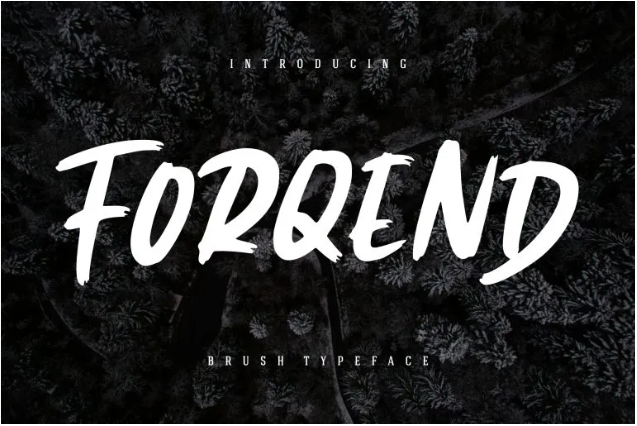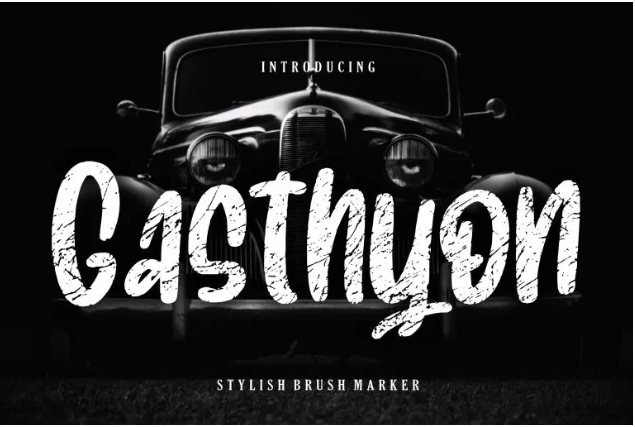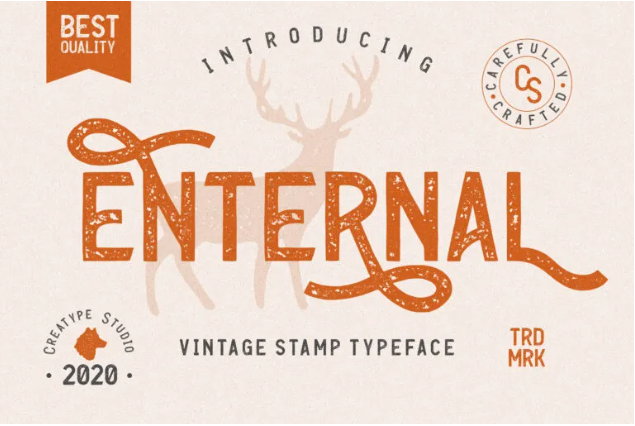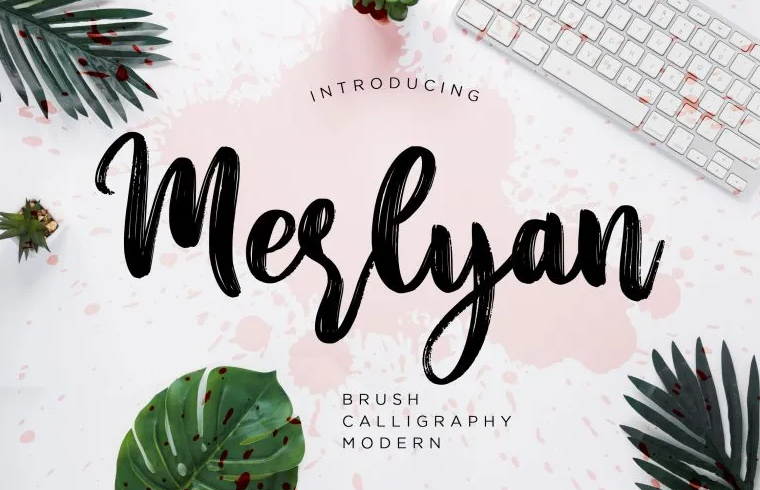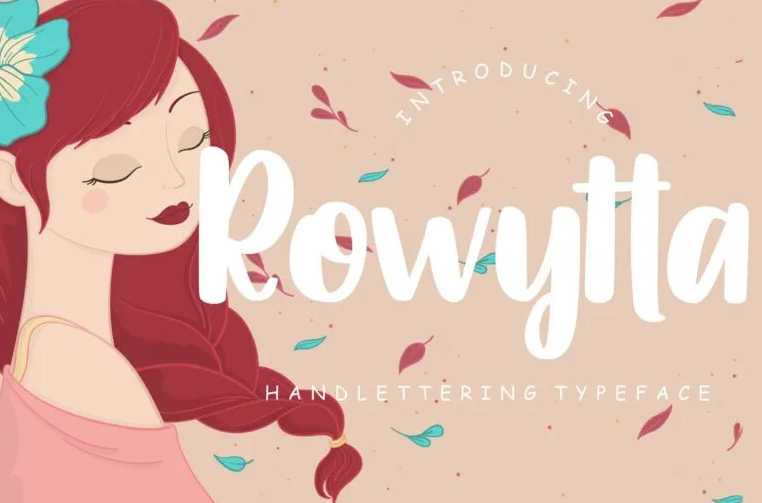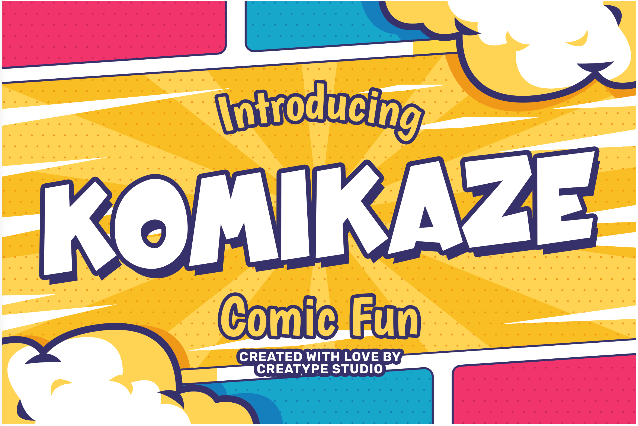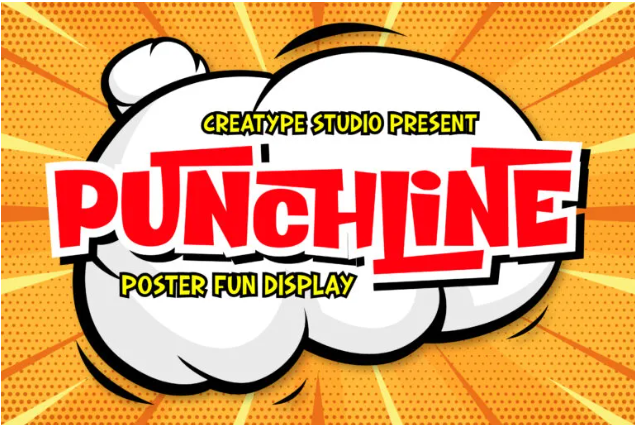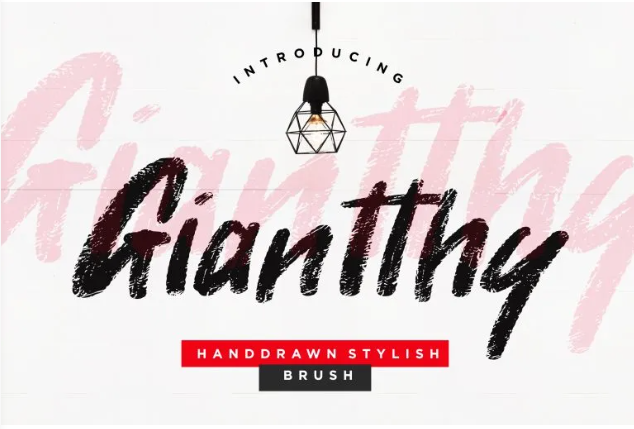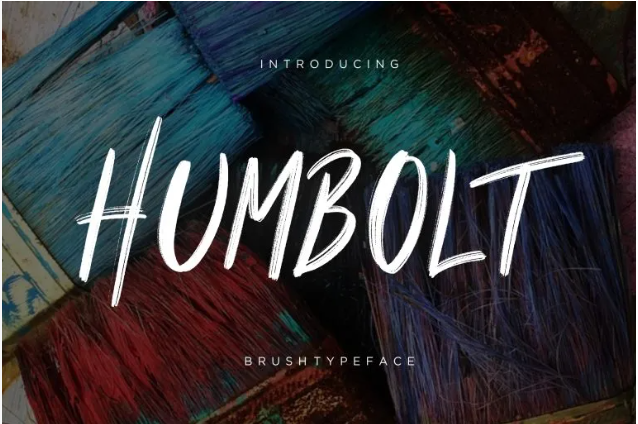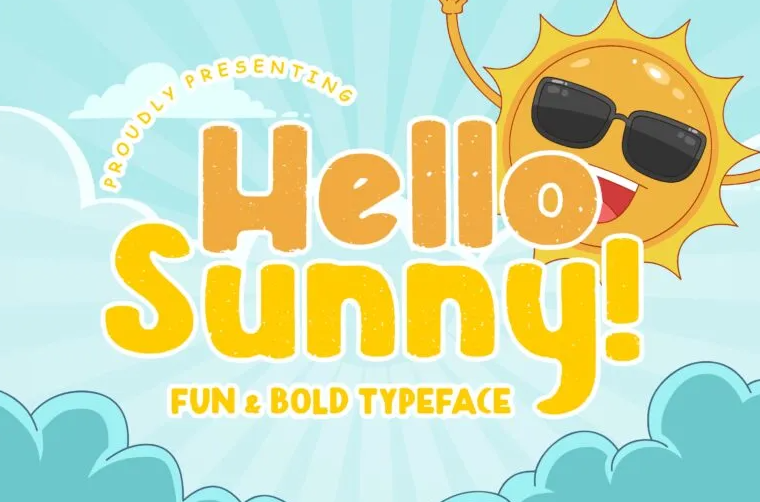
20+ Options of Billboard Font to Pep Up Ads Design
Billboards are meant to inform the content, so the wise thing is to convey the message with a legible font like Helvetica or Arial. But, designers gotta design, right? Choosing your billboard font to match your aesthetic design is a plus.
Unique Billboard Fonts for Any Occasion
Bear in mind that the fonts you use for a billboard ad design should be legible from a distance in a limited time.  Additionally, the message should also be easily palpable, yet striking.
1. Forqend
Forqend Brush Typeface
Sans serif is the best typeface option for billboard designs since it has a minimalist design with high legibility.  Forqend, which is a sans serif brush typeface, offers that basic requirement and portrays the excitement and an outdoor vibe of your campaigns.
2. Banshee
Banshee Brush Script Font
For more urban-themed campaigns, you can use Banshee. This one is versatile since it’s a brush script font. So, it’s a fascinating choice to stand alone, but you can pair it with other fonts too.
3. The Quest
The Quest Retro Font
As a retro typeface, The Quest is the best font for billboards you can ask for if you need a vintage or retro mood. It has eccentric yet legible designs with palpable weight. Not only suitable for retro-themed campaigns, the font can also paired with modern, fun, and youthful designs.
4. Komikaze
Komikaze Comic Font
Add Komikaze to your designs and see the difference it makes. This font should be your go-to if you want to highlight a sense of urgency in your campaigns.
5. Punchline
Punchline Poster Display Typeface
If you want a wilder alternative for Komikaze, use Punchline. This one has a similar shape with added tails and “hats” to the alternate letters, making it much more vibrant.
6. Coutline
Coutline Stencil Typeface
Coutline is a stencil typeface, the font has the typical urban vibe. The font is a perfect match for your active campaigns or sports products.
7. Giantthy
Giantthy Brush Font
Choosing Ghiantthy as your billboard font can be a major improvement to your designs. This hand-drawn brush font can fit a wide range of products, including sportswear, culinary, and outdoor apparel.
8. Jacklyn Blands
Jacklyn Blands Stylish Marker Font
As a billboard font, Jacklyn Blands can assert your messages. With its stylish marker typeface, it portrays the assertiveness of your campaigns in every stroke.
9. Humbolt
Humbolt Brush Font
The humble Humbolt projects so many movements with its brush strokes. The font has sleek lines nature that can be wholesome and screaming depending on your design.
10. Gasthyon
Gasthyon Vintage Font
Among the vintage fonts, Gasthyon is the charming one. It combines brush and marker typeface and carries a vintage theme. The font has both a laidback and active vibe, not to mention its unique appearance.
11. Enternal
Enternal Vintage Stamp Typeface
Claims to have a vintage stamp typeface, Enternal certainly serves the point. This font even mimics the lasso movements as its tails and swashes which make it more captivating.
12. Sunblock
Sunblock Bold Display Font
If you want a dominant font, definitely use Sunblock as your billboard font. It’s a display font with bold typeface. Your campaign certainly will captivate more people.
13. Salatiga
Salatiga Fun Display Font
If you need a fun and unique font, try Salatiga. This display font is perfect for dynamic and refreshing ads design. The bold character makes it stand out on your billboard.
14. Merylan
Merlyan Brush Calligraphy Font
Be careful when you choose script fonts for your billboard ads! Opt for a script typeface with a dense weight rather than a thin one. You can try Merlyan Brush Callighraphy which has elegant forms of script typeface while providing decent legibility.
15. Hello Sunny
Hello Sunny Fun and Bold Typeface
The Hello Sunny speaks vividly for ads with a peppy and fun theme. The characters’ weights are quite bold with more rounded shapes which recommend strong legibility from a far distance.
16. Kingstyle
Kingstyle Elegant Serif Typeface
A serif typeface is always good for billboard font, plus an elegant one like Kingstyle. The font has many alternate letters with swashes to add persona to your campaigns.
17. Rowytta
Rowytta Handlettering Font
Rowytta has many capabilities on your billboard designs. You can pair it with beauty products, family-themed campaigns, or even as a dedicated quotes font. This sans serif font is perfect for a minimalist and simple font billboard.